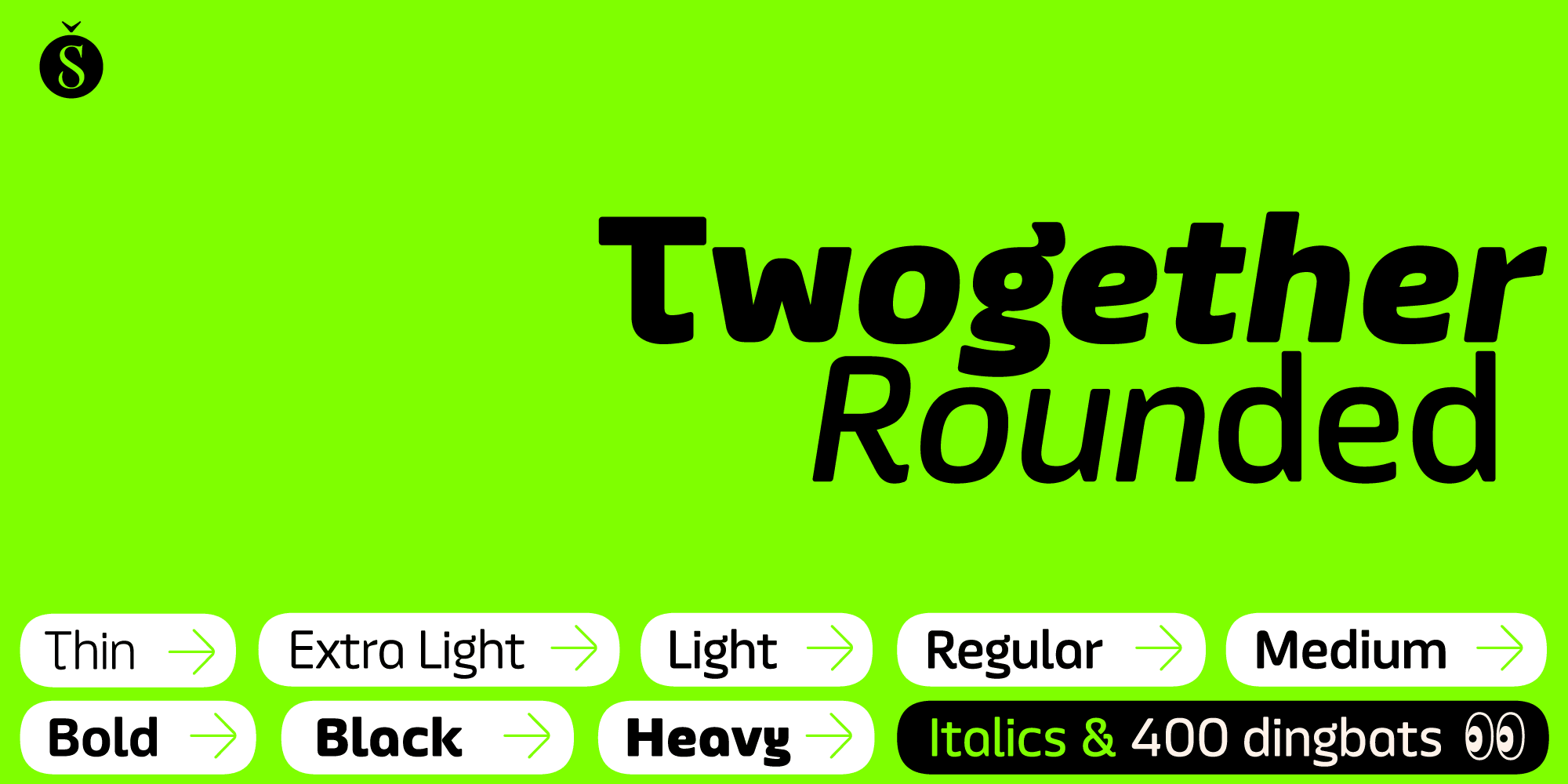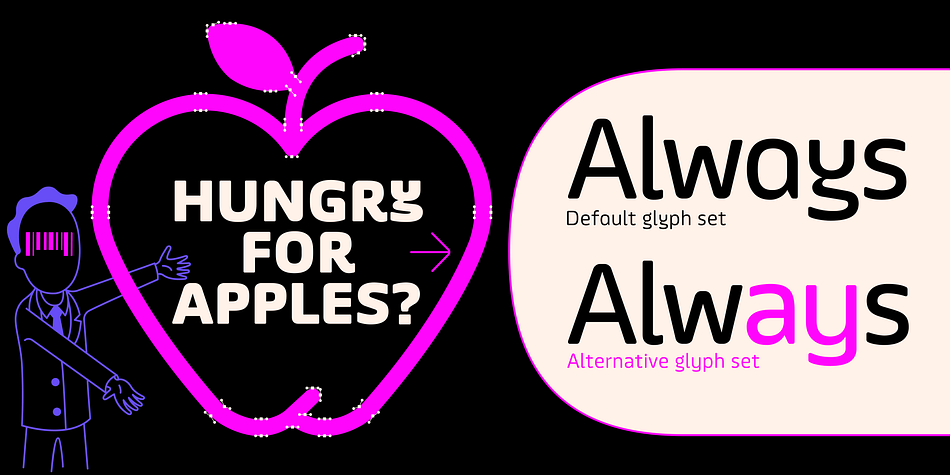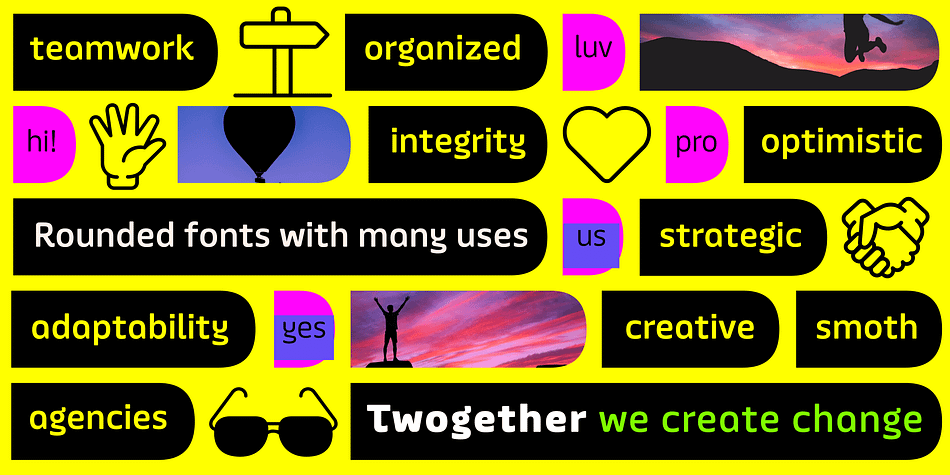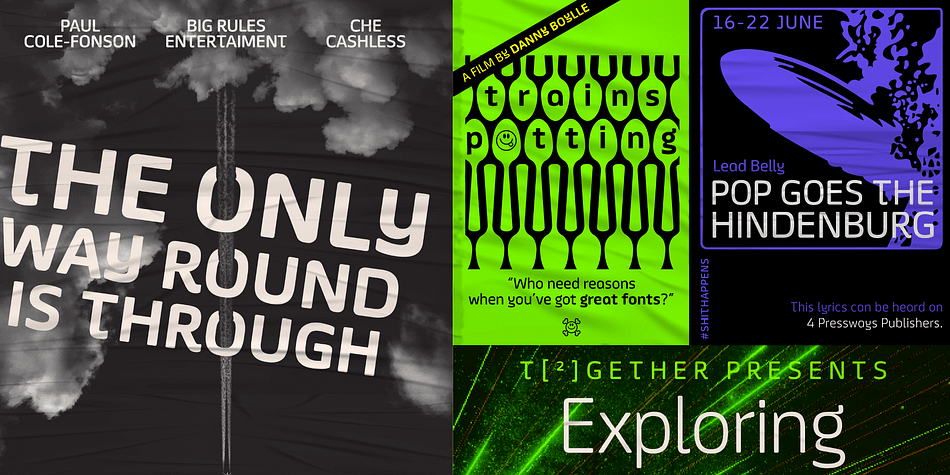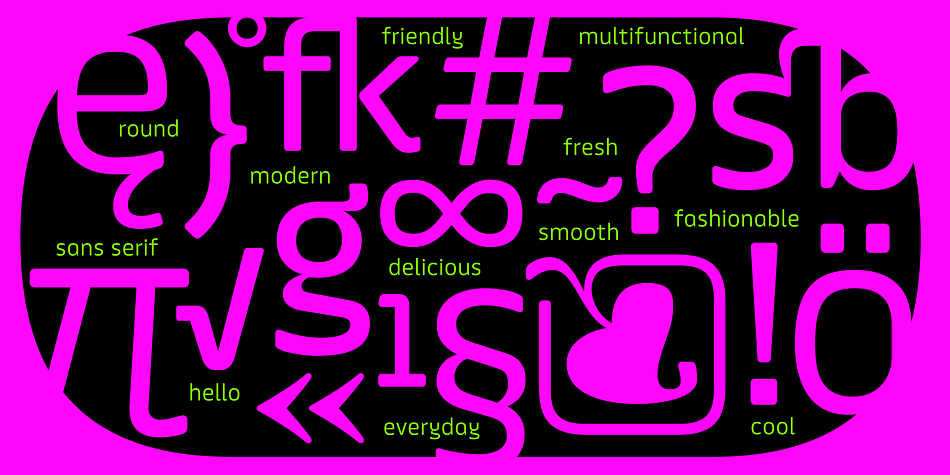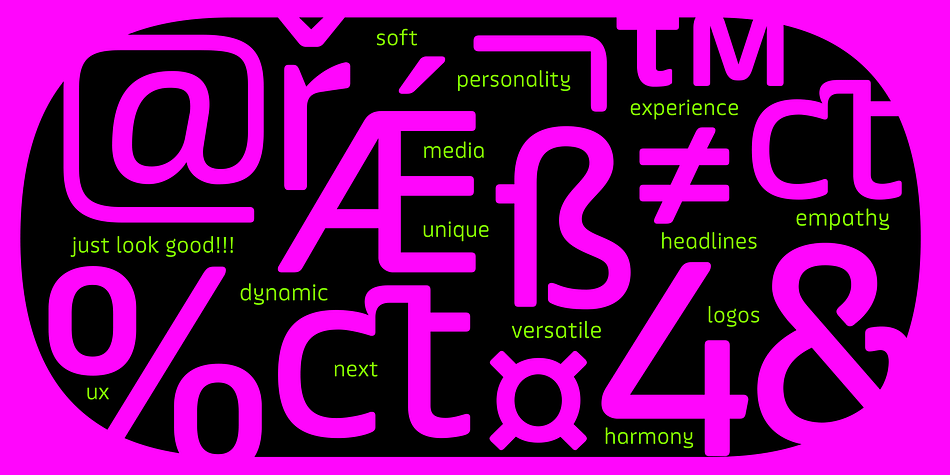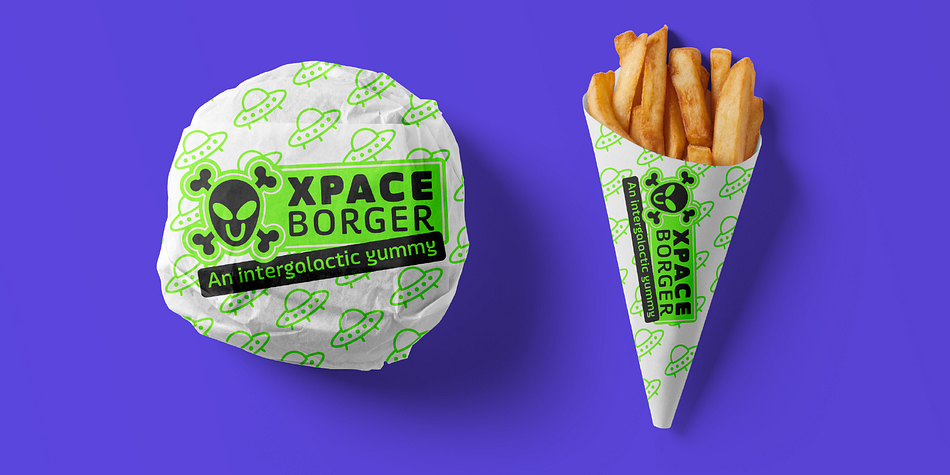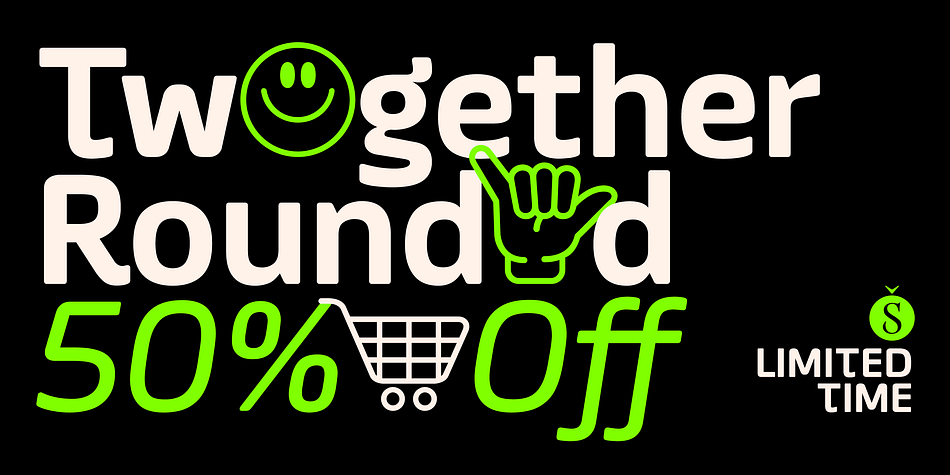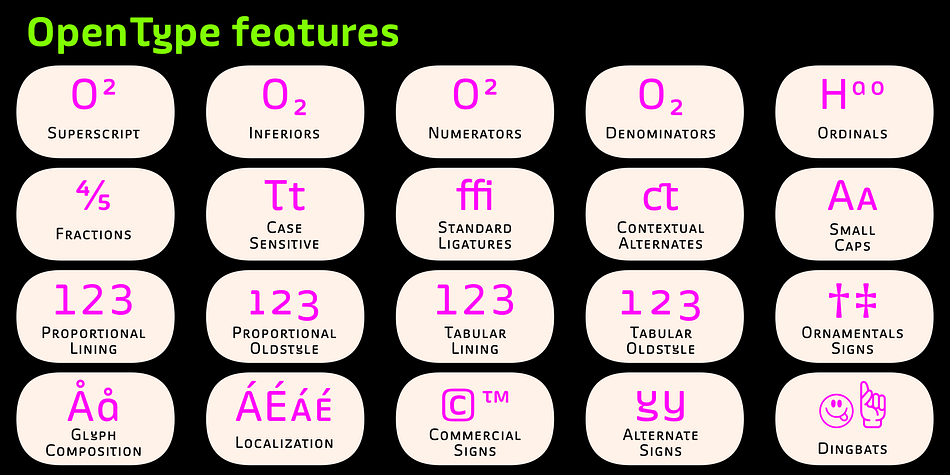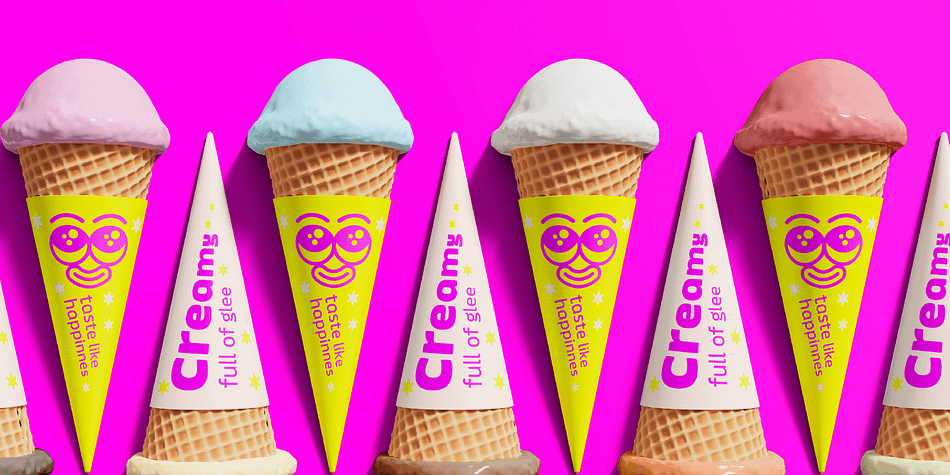
Twogether Rounded
Designed by Raúl Plancarte, Twogether Rounded is a sans serif and dingbat font family. This typeface has nineteen styles and was published by Sudtipos.
The new font family Twogether Rounded, designed by Raúl Plancarte and published by Sudtipos, is a Sans Serif style with a rounded appearance. The aim of its design is to establish connections with diverse audiences and create a positive “feel good” sensation.
The rounded style of typography is currently appreciated for its friendly and fresh personality. It is in trend, and the internet and technology have welcomed it with open arms, giving it a new sense of purpose. The proof is in the way that brands such as Box, Cox, Gaia Online, Imgur, Instacart, Instagram, itv 4, Jio, Skype, Twitter, Viasat, Vimeo, and Zoom Video have incorporated it into their visual identities.
In the case of Twogether Rounded, a technical design has been combined with avant-garde contrasts, while still maintaining an institutional feel. These modern and lively fonts allow for a personal touch to be the protagonist, making them perfect for a range of design applications.
Twogether Rounded’s design makes it the perfect font family for a variety of design applications, including UX/UI, apps, branding, editorial design, and more. Its versatility and modern style can adapt to different design needs, making it a valuable asset for any designer or creative professional.​​​​​​​